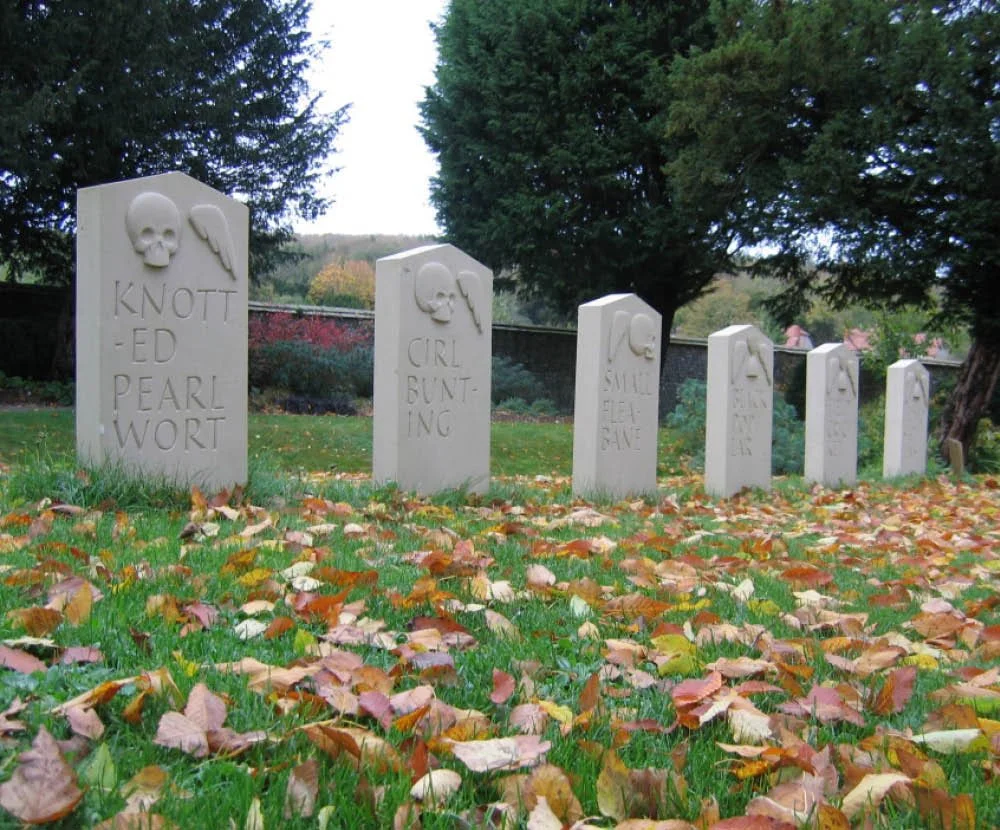
Six Stones: a memorial to lost and endangered species by Andrew Whittle
The three stones with skulls and wings represent just some of the species lost to West Sussex in the last century. They look towards the stones with hourglasses, whose time is running out. The animals, plants, insects and birds referred to illustrate a story which is becoming universal, of small and largely unnoticed losses everywhere.
“The symbolism is taken from the marvelously explicit 17th and 18th century stones found in churchyards. The shape, however, is more akin to a milestone, suggesting that we are on a journey towards a different place. The sixth stone plainly refers to our possible extinction. What is certain is that the joyful diversity of life which our grandparents knew has already been lost through the actions of man.”